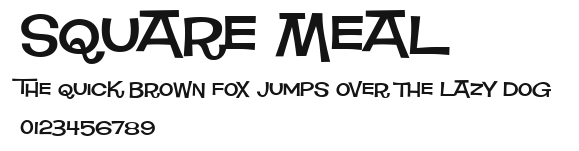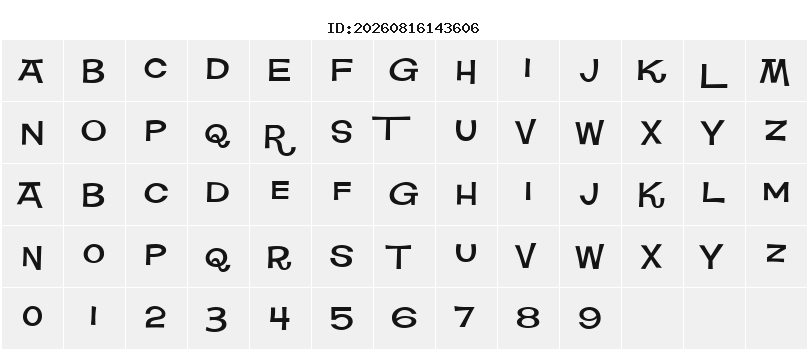
Square Meal Preview
• Font Name: Square Meal
• Full Font Name: Square Meal
• Designer: Stuart Sandler
• Manufacturer: Font Diner
About Square Meal.ttf
Square Meal.ttf is a modern, elegant sans-serif font designed for ultimate readability and visual harmony. Perfect for branding, headlines, web design, and print materials.